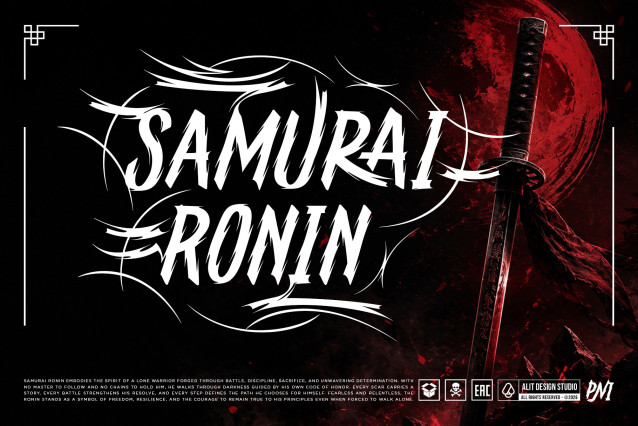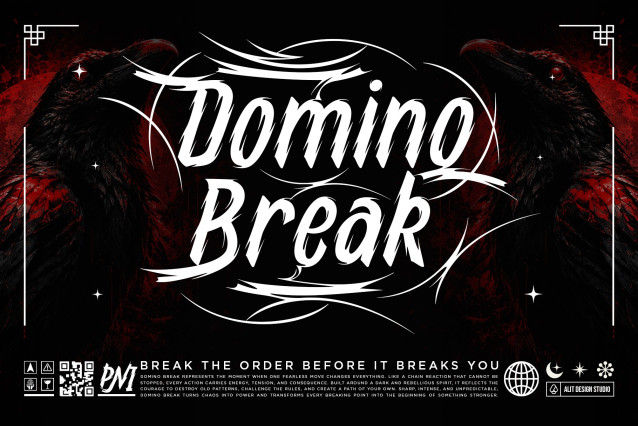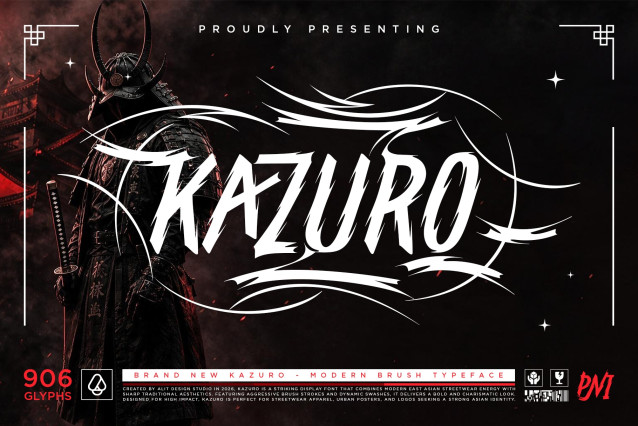
Kazuro Font
Kazuro Typeface – Modern Asian Streetwear Brush Font
Proudly presenting Kazuro Typeface, a striking display font that seamlessly blends modern East Asian streetwear energy with sharp, traditional aesthetics. Featuring aggressive brush strokes, raw textures, and dynamic swashes, Kazuro delivers a bold, intense, and charismatic look that commands attention.
Inspired by the fearless soul of a lone ronin and the untamed energy of urban rebellion, this font is designed for high-impact visual presence. Whether you are designing for a modern apparel brand or creating an edgy event poster, Kazuro turns chaos into power and makes every composition stand out.